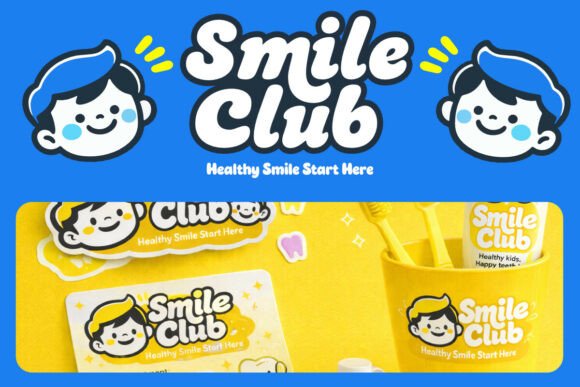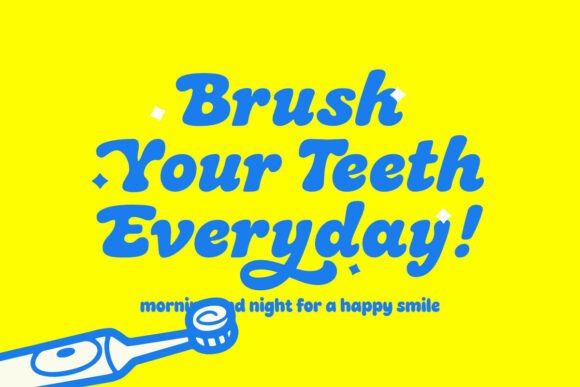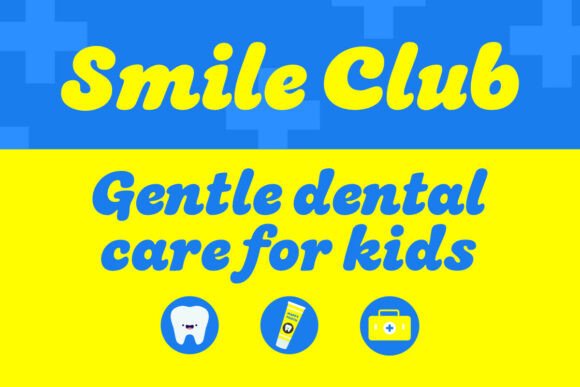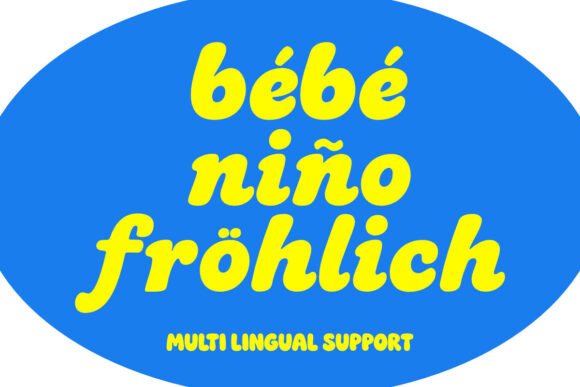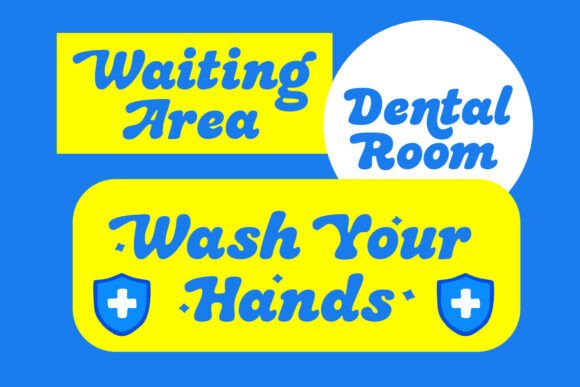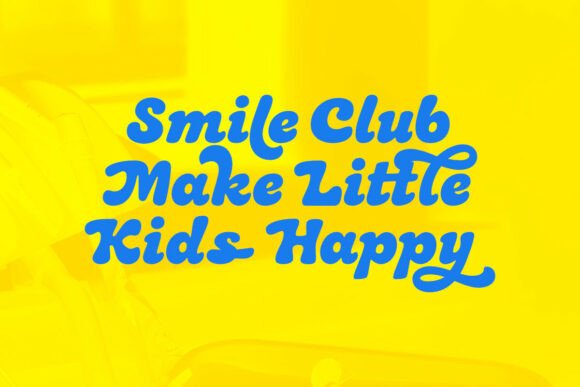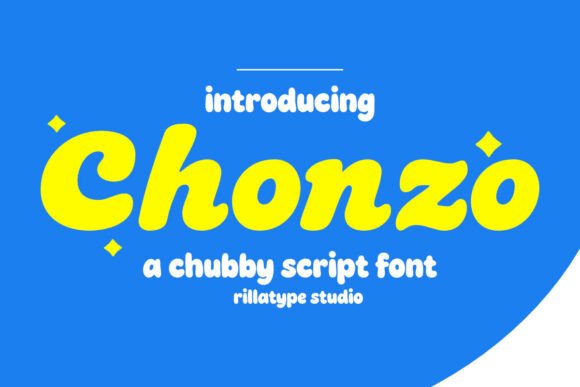
Introducing Chonzo Font: The Perfect Blend of Playfulness and Friendliness
Are you tired of using the same old fonts for your designs? Look no further than Chonzo Font, a chubby script font that’s sure to add a touch of playfulness and friendliness to your projects. With its thick strokes, rounded shapes, and handwritten feel, Chonzo is the perfect choice for designers and crafters looking to create bold, soft, and cheerful designs.
The Characteristics of Chonzo Font
Chonzo Font is a unique and eye-catching font that’s characterized by its:
- Thick strokes: Chonzo’s bold strokes give it a sturdy and confident feel, making it perfect for headlines, titles, and other display text.
- Rounded shapes: The font’s rounded shapes add a touch of softness and friendliness, making it ideal for designs that need to convey a sense of approachability.
- Playful handwritten feel: Chonzo’s handwritten feel gives it a personal and informal touch, making it perfect for designs that need to feel fun and energetic.
What Can You Use Chonzo Font For?
Chonzo Font is a versatile font that can be used for a wide range of design projects, including:
- Headlines and titles: Chonzo’s bold strokes and playful feel make it perfect for headlines and titles that need to grab attention.
- Posters and flyers: The font’s cheerful and energetic vibe makes it ideal for posters and flyers that need to convey a sense of excitement and fun.
- Packaging text: Chonzo’s friendly and approachable feel makes it perfect for packaging text that needs to appeal to customers.
- Social media graphics: The font’s playful and informal feel makes it ideal for social media graphics that need to feel fun and engaging.
- Branding designs: Chonzo’s bold and cheerful vibe makes it perfect for branding designs that need to convey a sense of friendliness and approachability.
Why Choose Chonzo Font?
So why choose Chonzo Font for your design projects? Here are just a few reasons:
- Unique and eye-catching: Chonzo Font is a unique and eye-catching font that’s sure to stand out from the crowd.
- Versatile: The font can be used for a wide range of design projects, from headlines and titles to packaging text and social media graphics.
- Easy to read: Despite its bold strokes, Chonzo Font is easy to read, even at small sizes.
- Fun and energetic: The font’s playful and handwritten feel gives it a fun and energetic vibe that’s perfect for designs that need to feel cheerful and approachable.
Tips for Using Chonzo Font
Here are a few tips for using Chonzo Font in your design projects:
- Use it for headlines and titles: Chonzo Font is perfect for headlines and titles that need to grab attention.
- Pair it with a simple font: To create visual interest, pair Chonzo Font with a simple font for body text.
- Experiment with colors: Chonzo Font looks great in a wide range of colors, so don’t be afraid to experiment and find the perfect hue for your design.
- Use it sparingly: While Chonzo Font is a beautiful font, it can be overwhelming if used too much. Use it sparingly to create visual interest and emphasis.
| Font Name | Chonzo Font |
| Author | Rillatype |
Chonzo Font is a unique and eye-catching font that’s perfect for designers and crafters looking to add a touch of playfulness and friendliness to their projects. With its thick strokes, rounded shapes, and handwritten feel, Chonzo is sure to become a favorite font in your collection. So why not give it a try and see how it can elevate your designs?